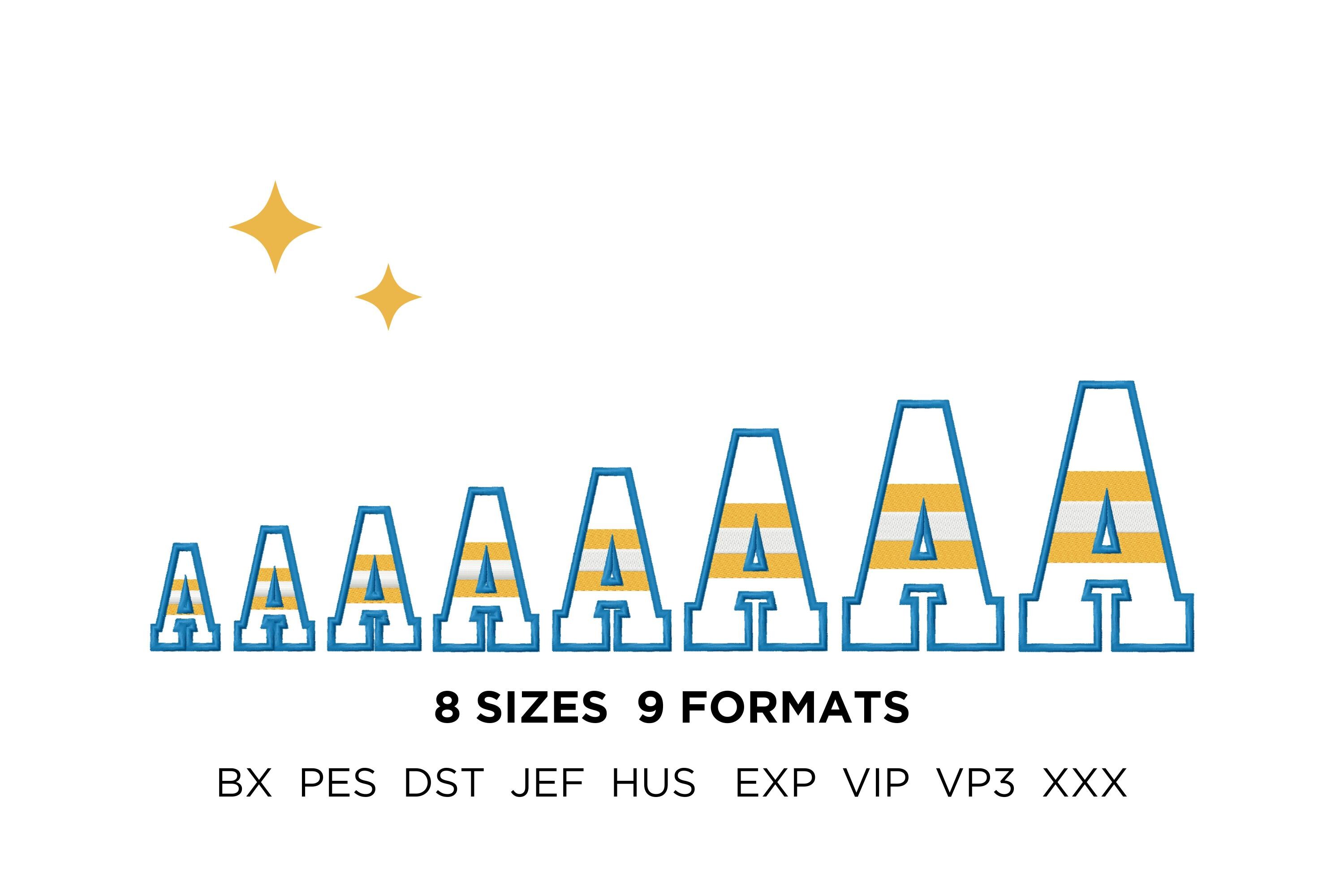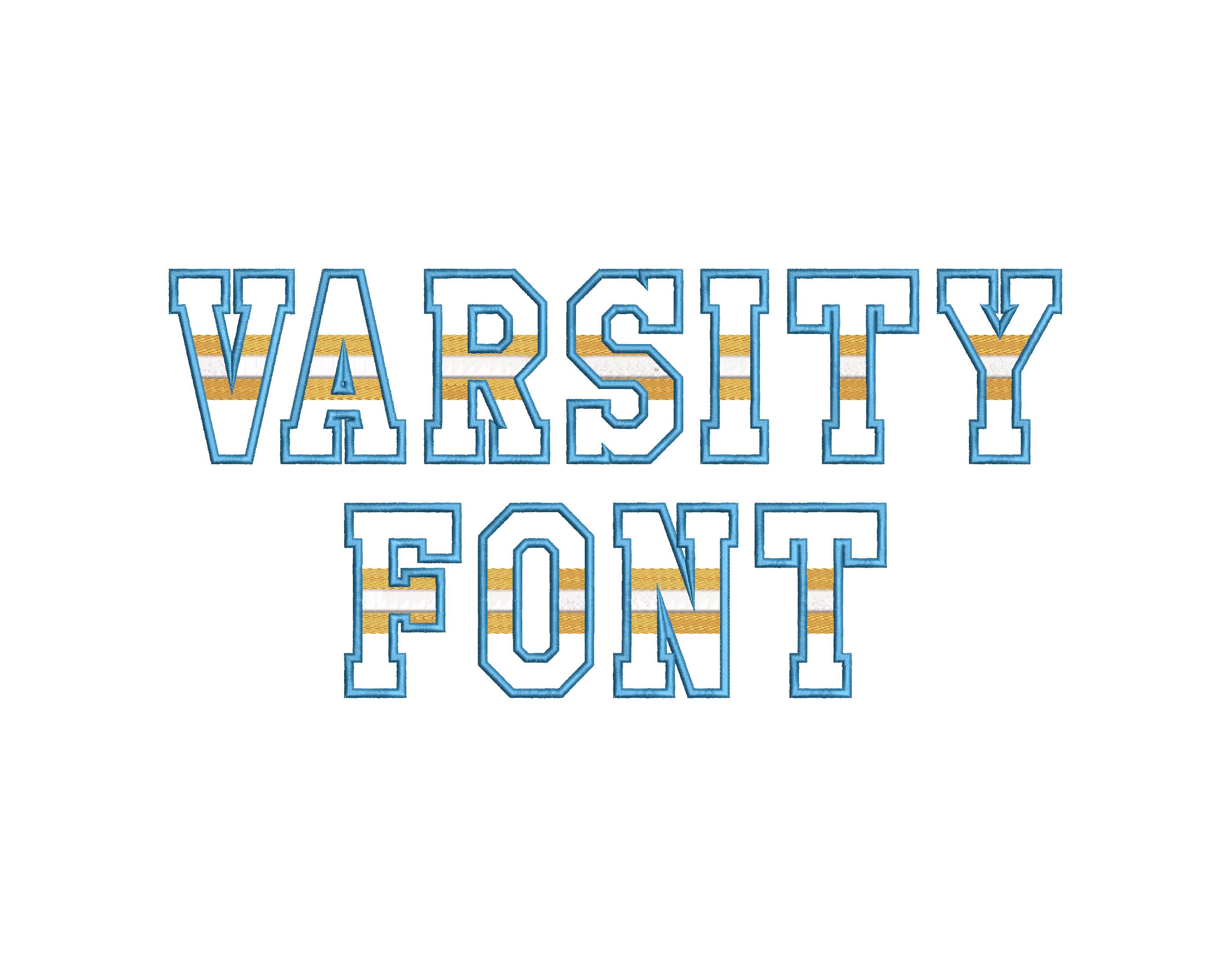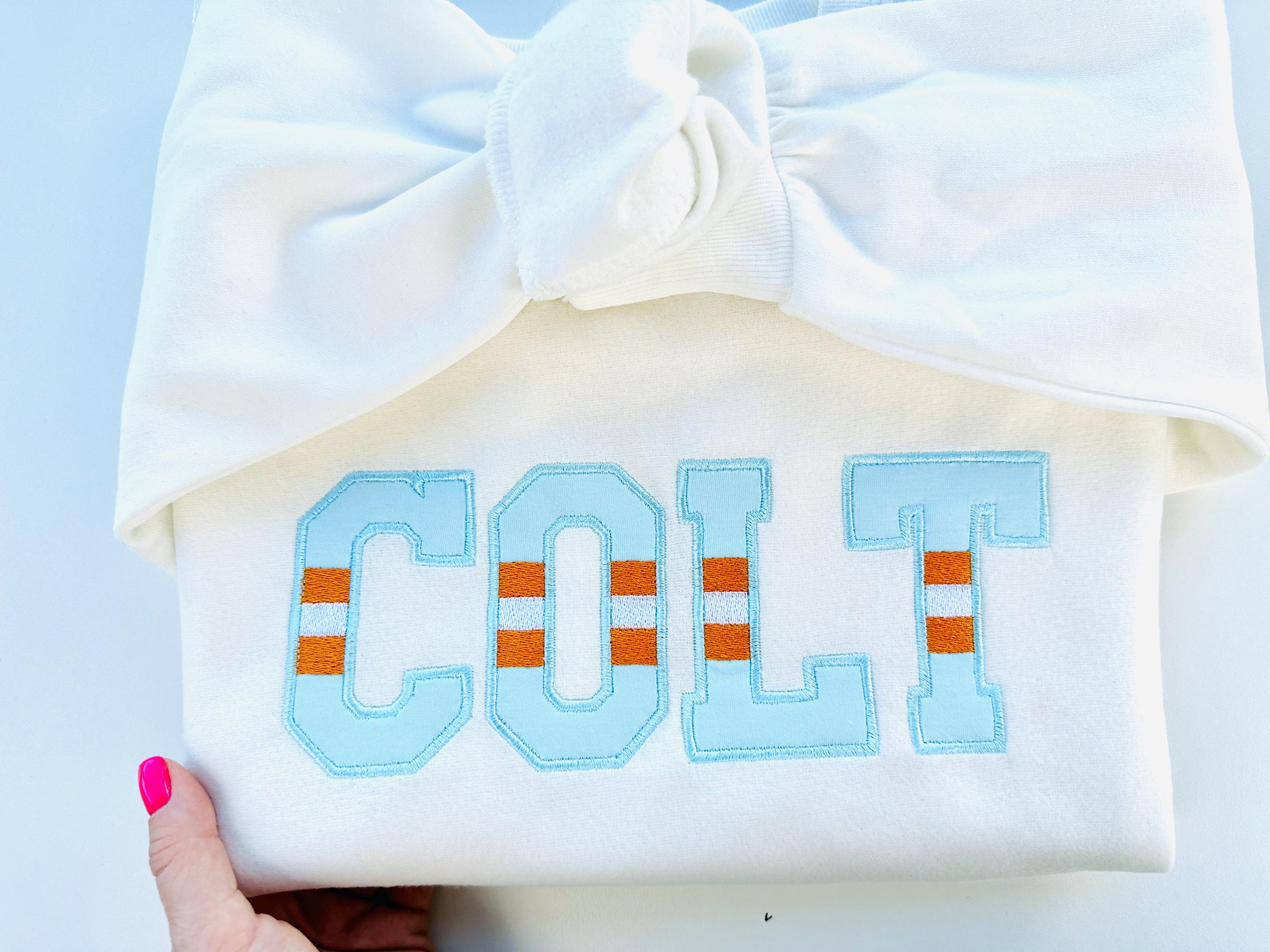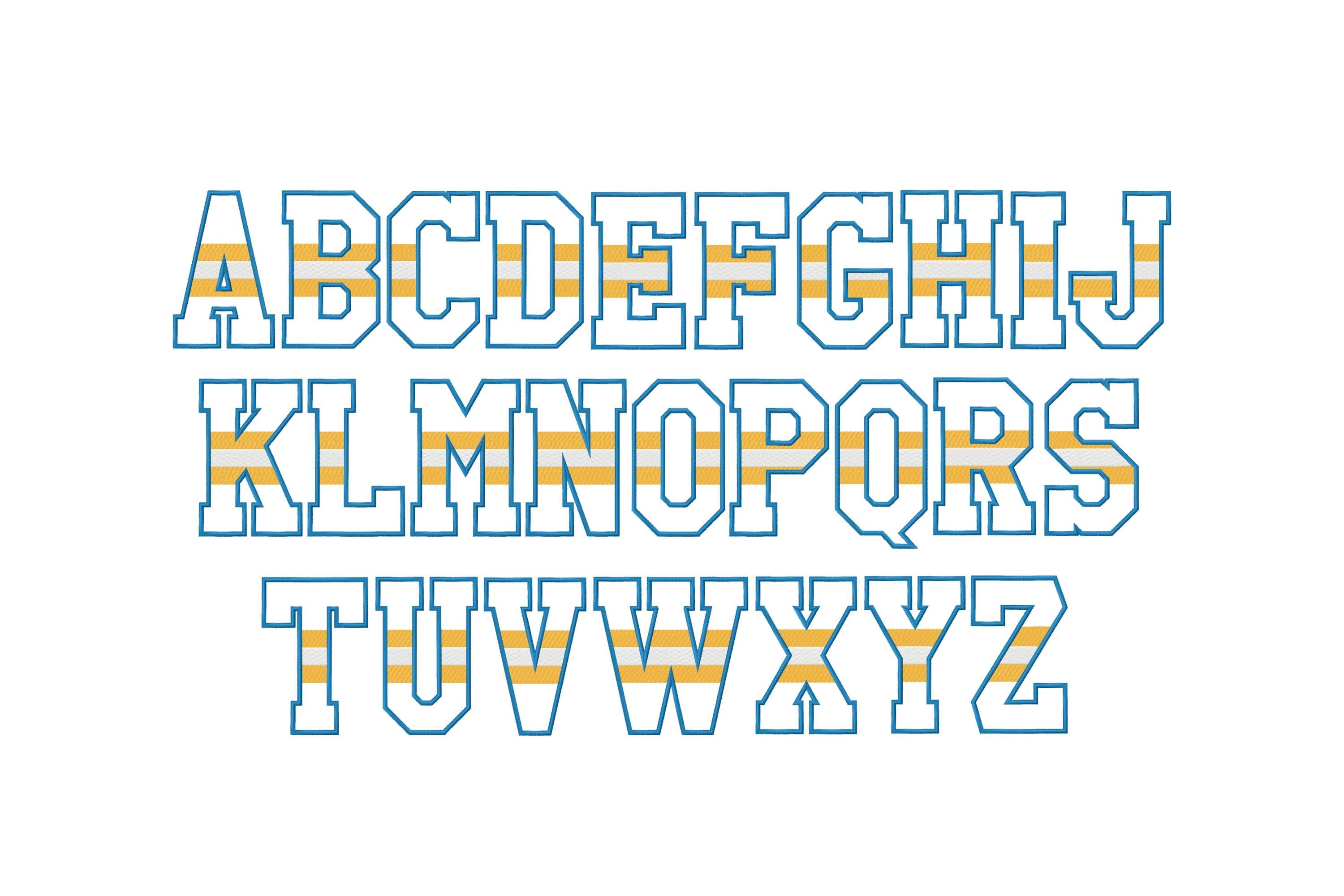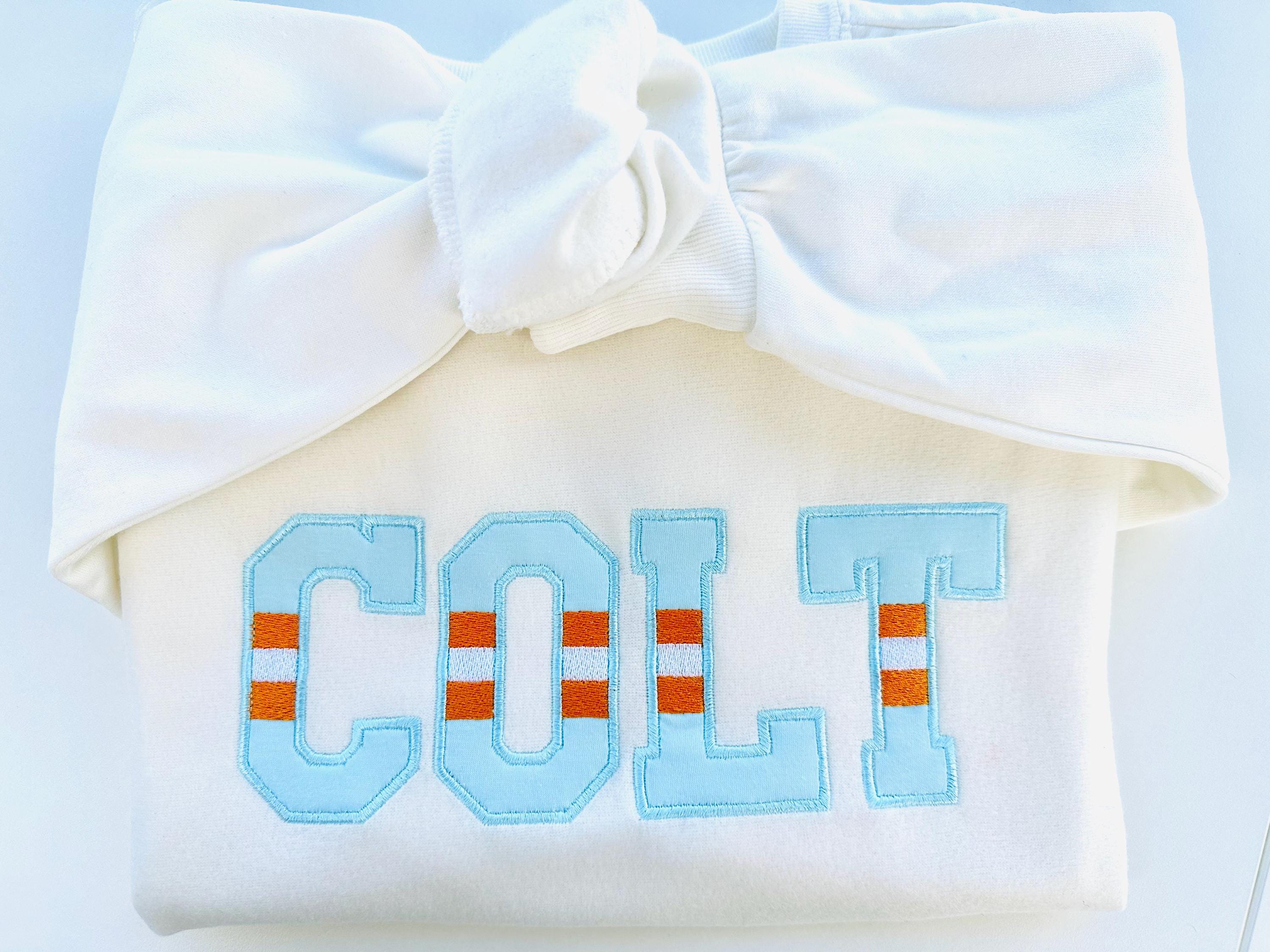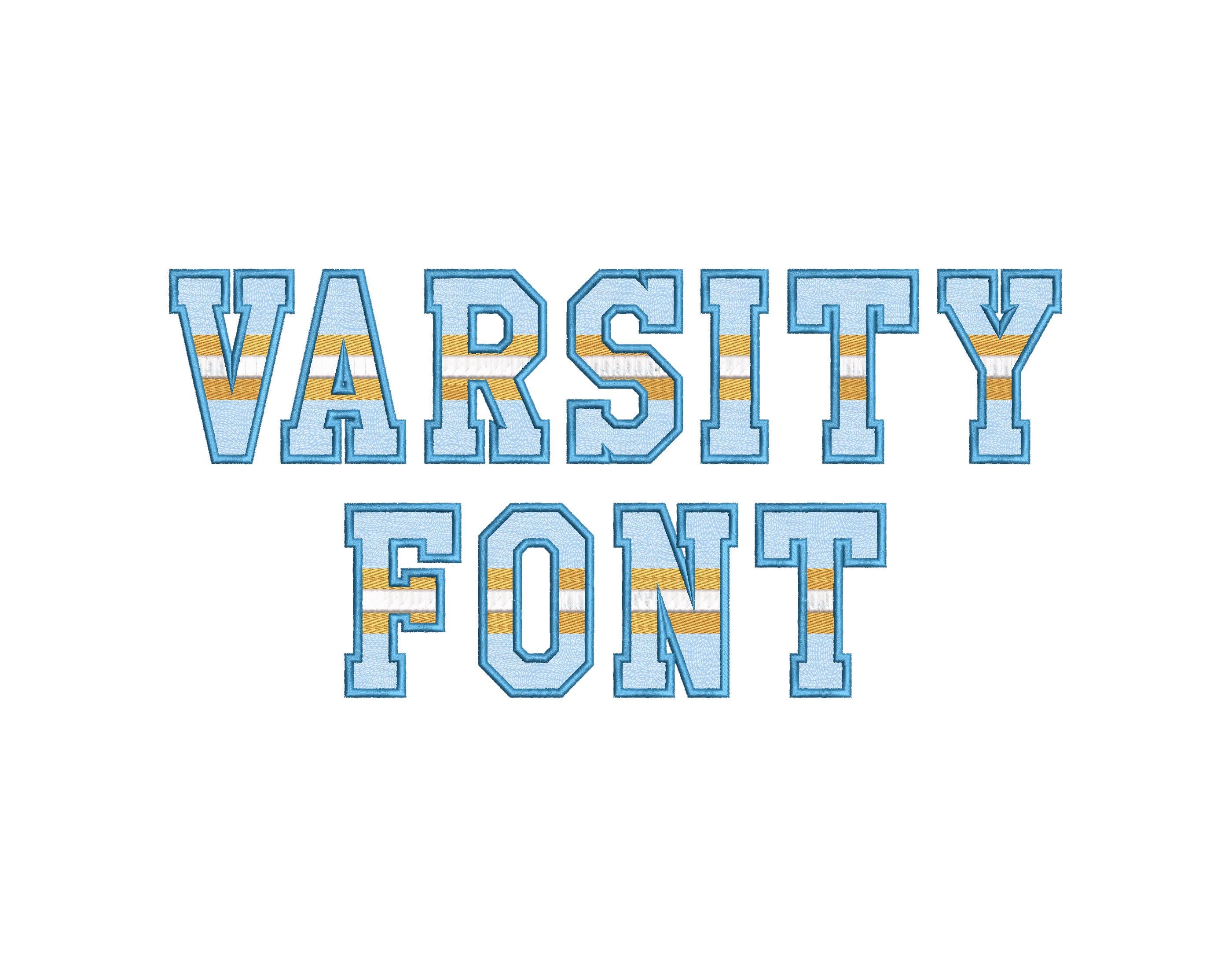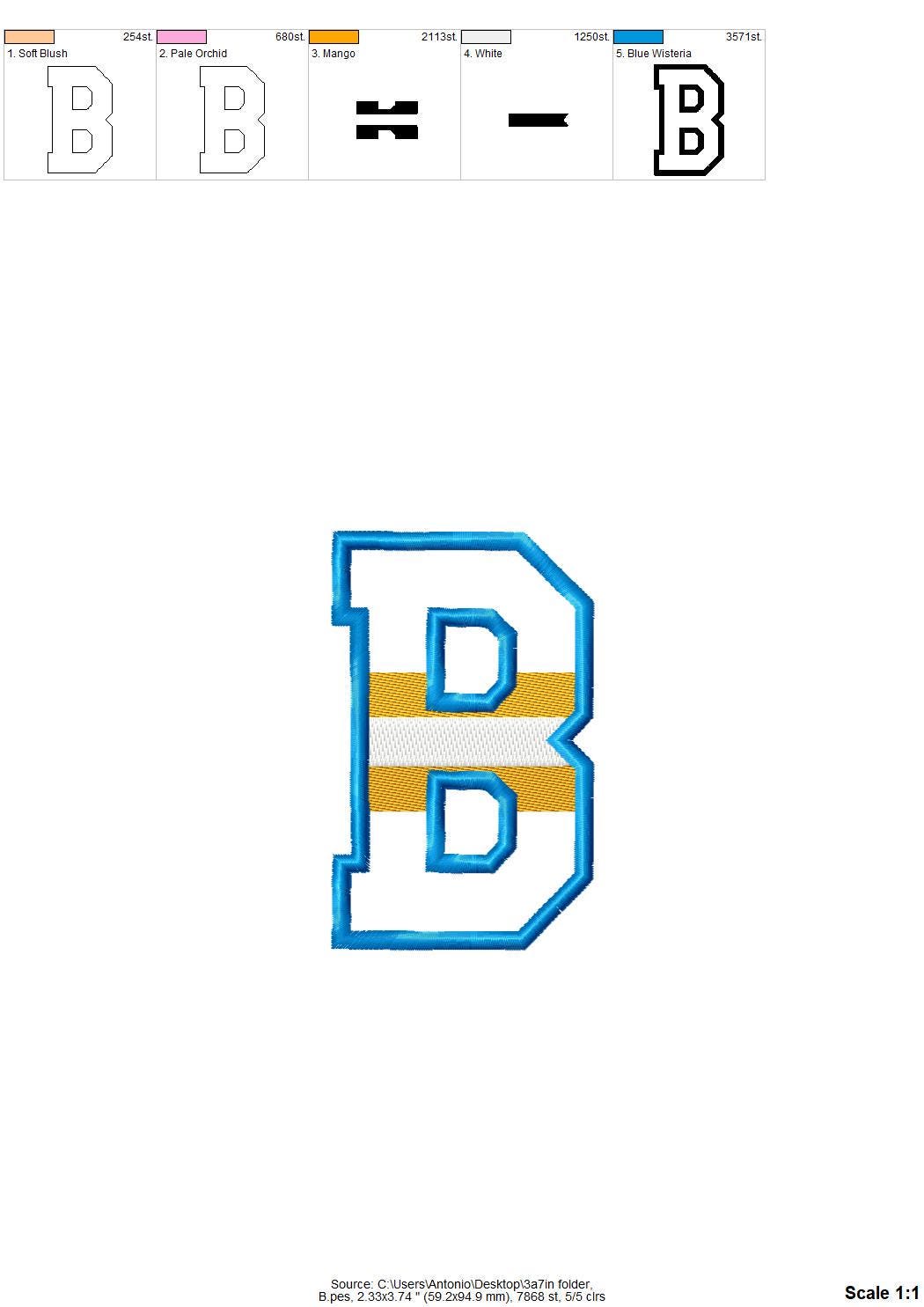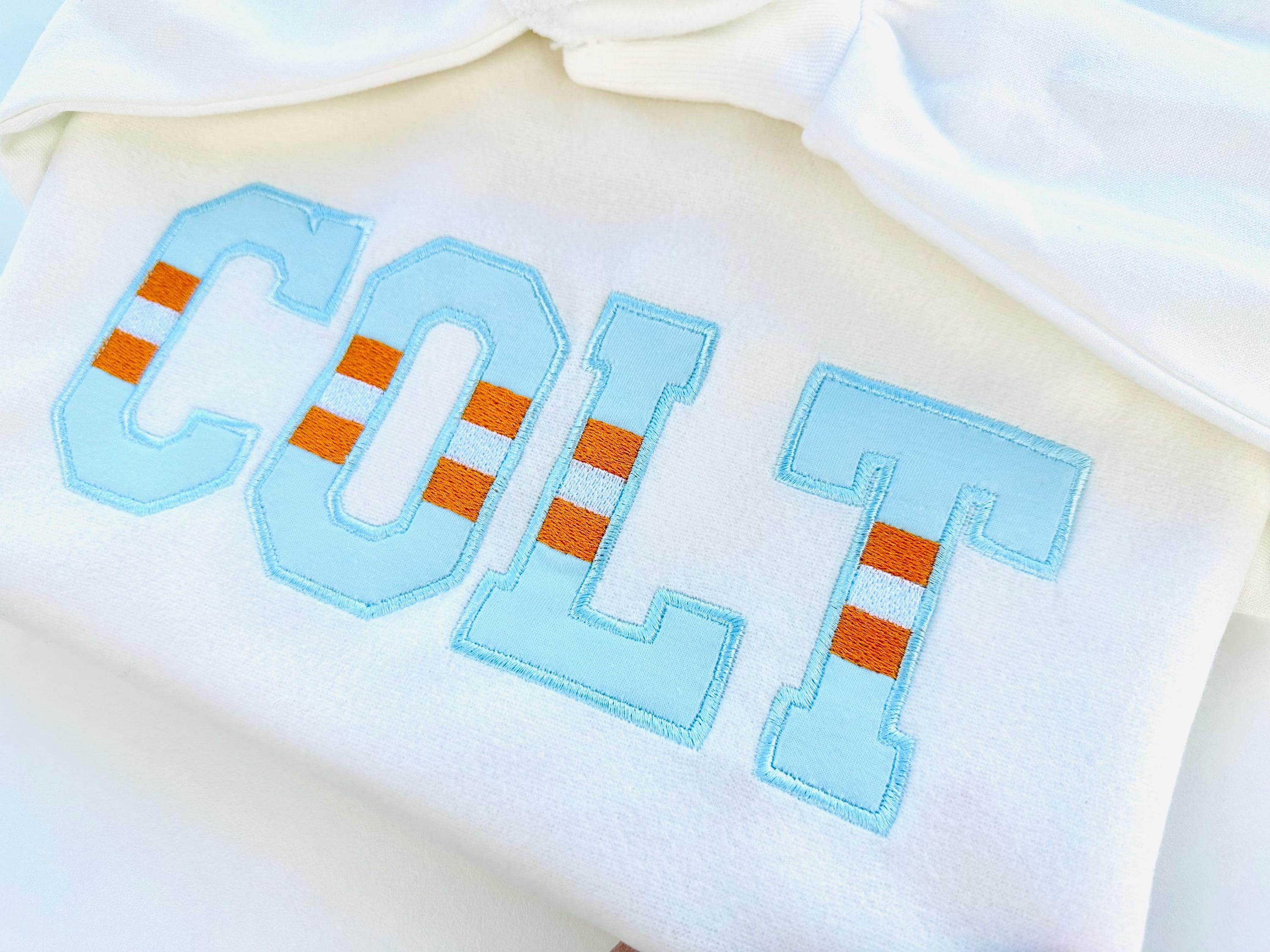
Striped Varsity Sports FONT Applique striped alphabet monogram letters Athletic Block Font machine embroidery designs sizes 2.2 up to 5.5 inch
Entire alphabet capital letters A-Z.
Awesome sports alphabet is appliqué design, and has fill stitched stripes and a nice satin stitch outline.